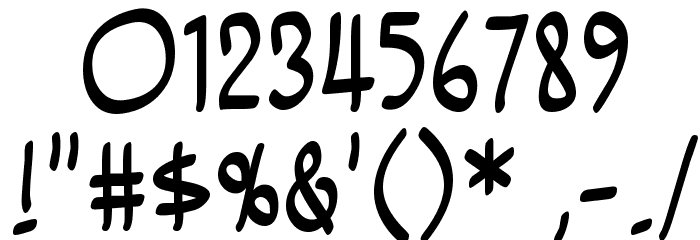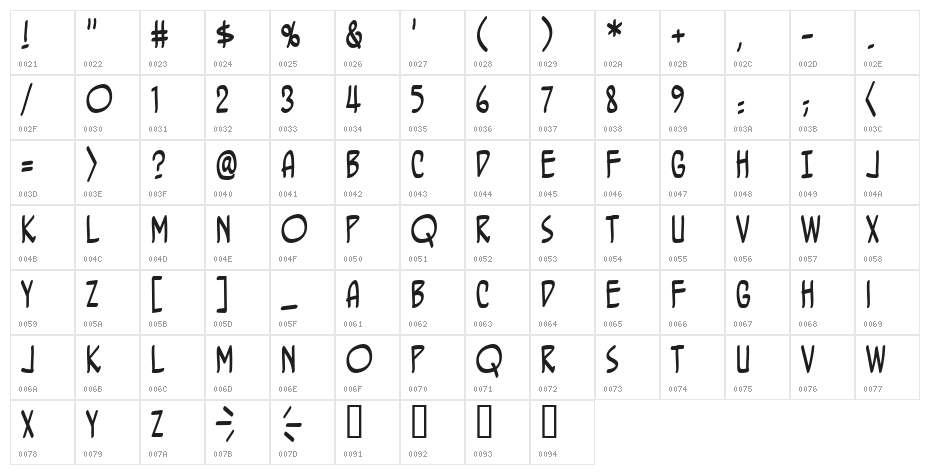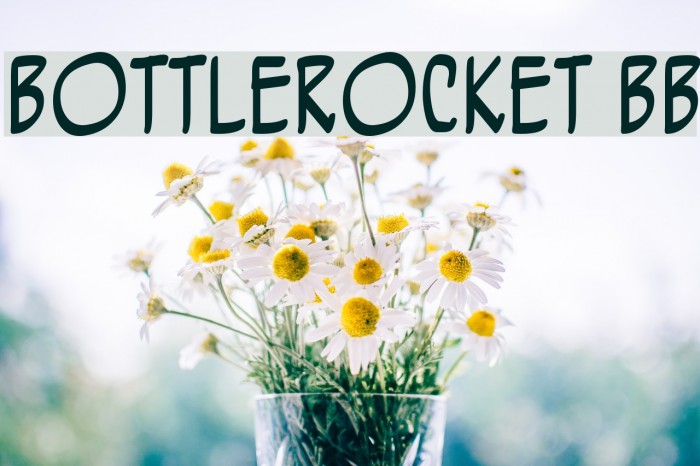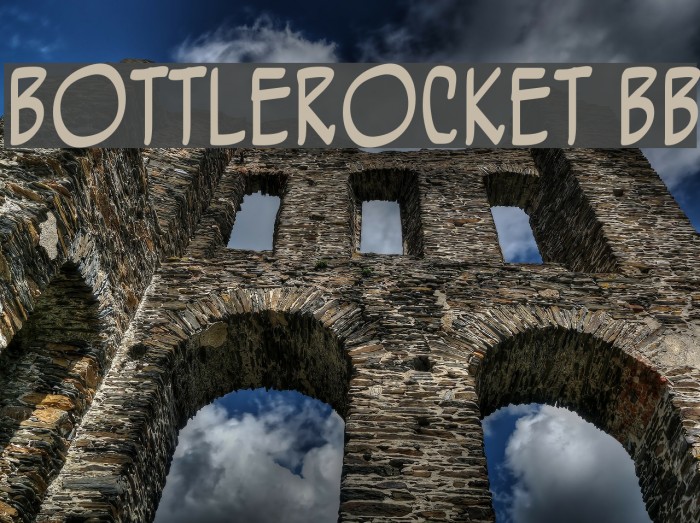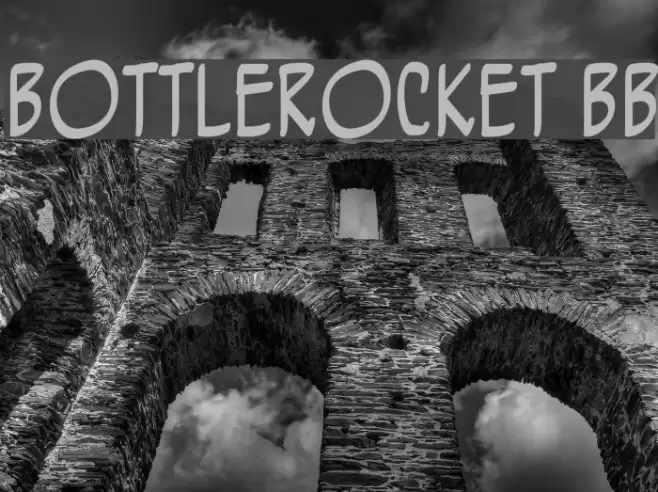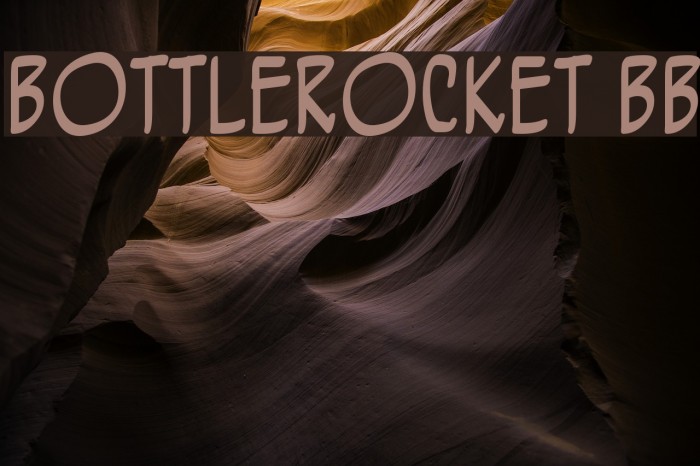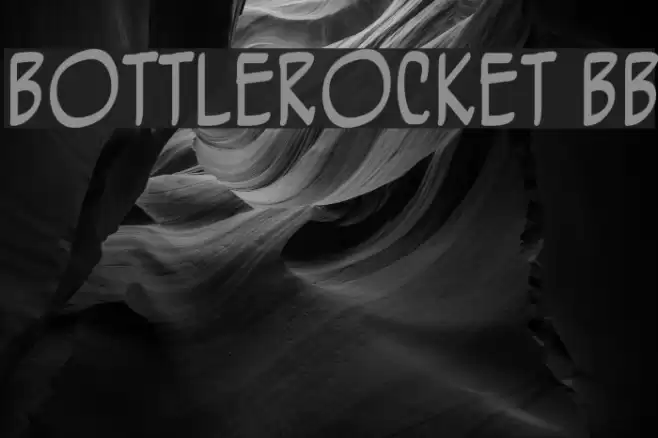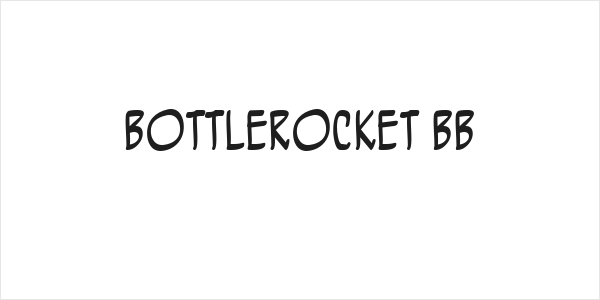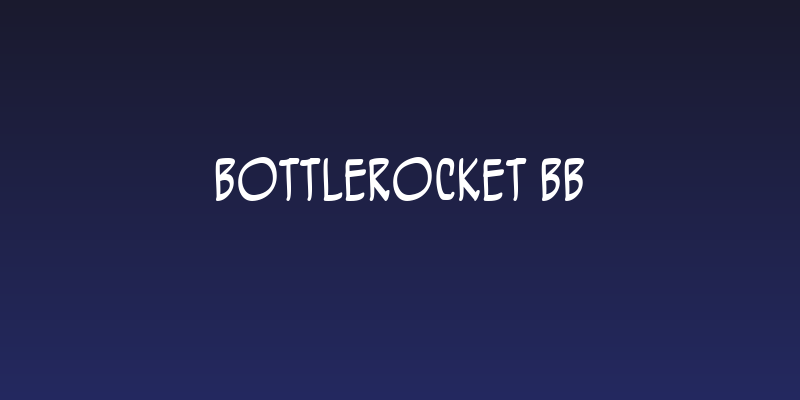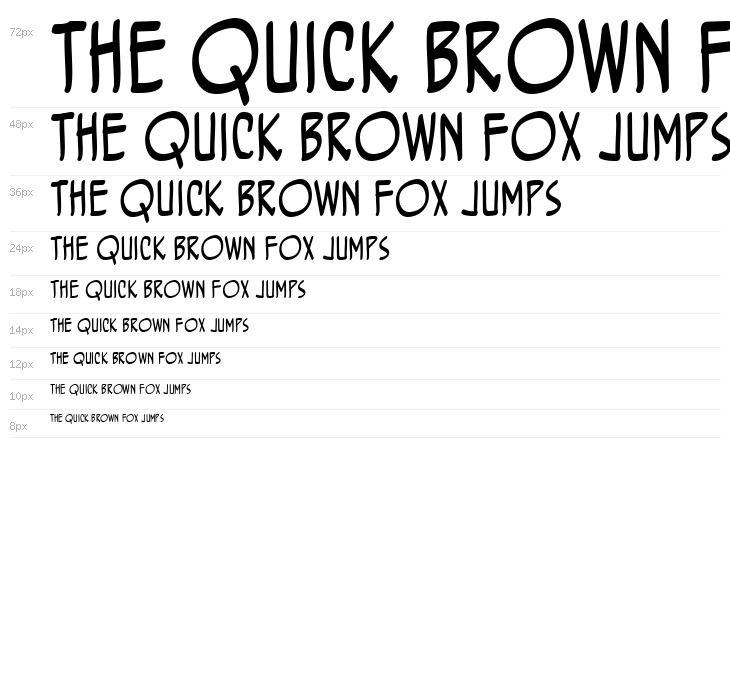
BottleRocket BB Font
BottleRocket BB Description
This font features a playful and casual handwritten style, characterized by its rounded and slightly irregular letterforms. The strokes are consistent in thickness, providing a uniform appearance that maintains readability. The font exudes a friendly and approachable vibe, making it suitable for informal and creative projects. Its unique character shapes add a touch of personality, while the consistent baseline ensures a cohesive look across text. The font includes a full set of uppercase and lowercase letters, numerals, and a variety of special characters, offering versatility for various design needs.
| Proposed Projects | Ideal for children's books, greeting cards, casual branding, and playful social media graphics. |